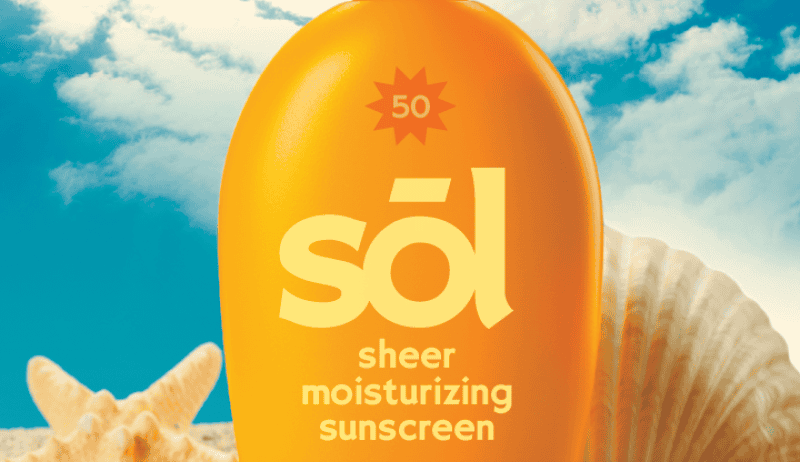
July 2026 Typeface Picks, New Fonts That Will Define Brand Design
July’s freshest typefaces, variable fonts, hand painted serifs and a free Greenpoint sans to download
Type That Tells a Story
July’s type releases shift how brands speak, with nuanced voice and bold personality. From breezy coastal scripts to rigorous variable systems, designers have serious options this month. Watch emerging foundries challenge marketplace norms, with platform innovations that favour creators and students. Profiles in the round up reveal projects born of memory, neighbourhood observation, craft, and editorial ambition. Each release offers concrete cues for branding, from display drama to dependable workhorse text faces. Sasha Denisova’s free Greenpoint Sans distils local signage into a generous, ready to use system. Read it for immediate inspiration, and practical direction.
This feature curates type with an eye for brand storytellers, editors, and packaging specialists. Discover Solaflare’s variable warmth, and Cajueira’s elegant family that maps growth into typographic form. See Mark Caneso’s Detail bring subtle eccentricity, and Sastre’s eleven year labour of craft. Micronova revisits modernist geometry with rigorous variable axes, ideal for system level brand work. Oratorio proves single weight display faces can still captivate, with flourish and typographic theatre. For creative directors seeking fresh palettes of tone, this list is indispensable research. It includes specimens and licensing notes that clarify practical usage right now.